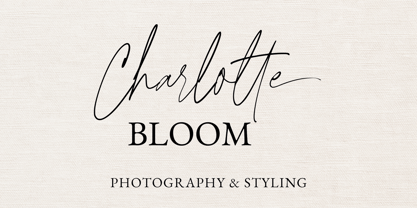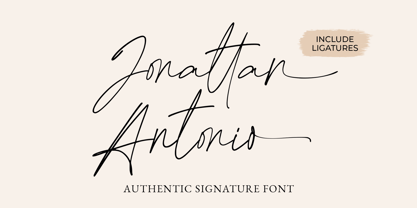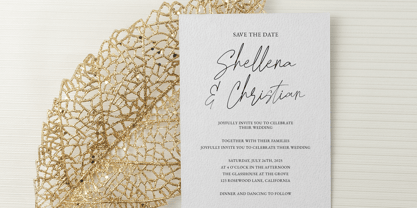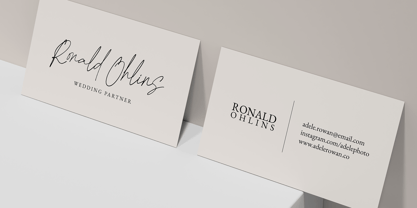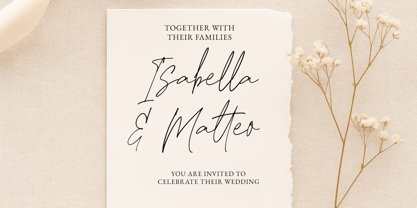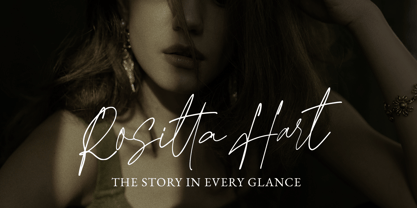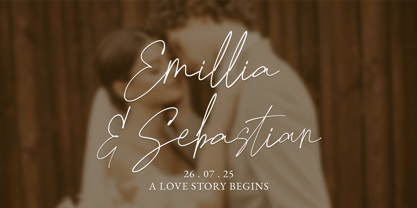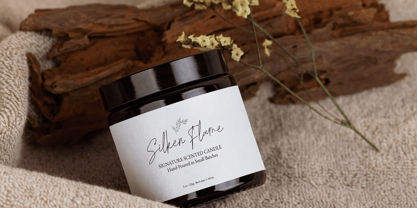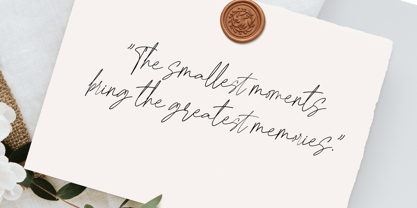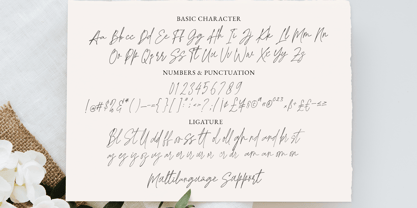
Jonattan Antonio
The Jonattan Antonio Font Family was designed by Muhammad Mujibulloh and published by MJB Letters. Jonattan Antonio contains 1 styles. More about this family
Jonattan Antonio is a modern signature font that captures the beauty of elegant handwriting with natural rhythm and fluid strokes. Designed to reflect authentic penmanship, each letter flows seamlessly, making it the perfect choice for upscale branding, personalized designs, and sophisticated presentations.
Crafted with care and precision, Jonattan Antonio delivers a clean yet character-rich aesthetic that enhances everything from logos to editorial designs.
Font Features
- Realistic handwritten look with natural curves
- Complete character set (uppercase, lowercase, numbers & punctuation)
- Includes ligatures for natural flow
- Multilingual support for Latin-based languages
Perfect For
- Elegant logo designs
- Personal branding materials
- Stationery and business signatures
- Social media graphics and quotes
- Invitations and minimalist packaging
Add a touch of elegance and personality to your projects with Jonattan Antonio, a graceful signature font for refined creatives.